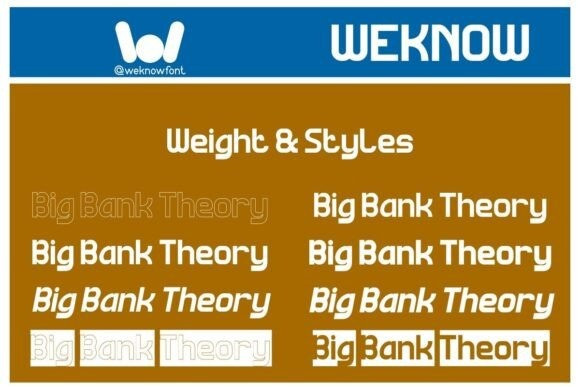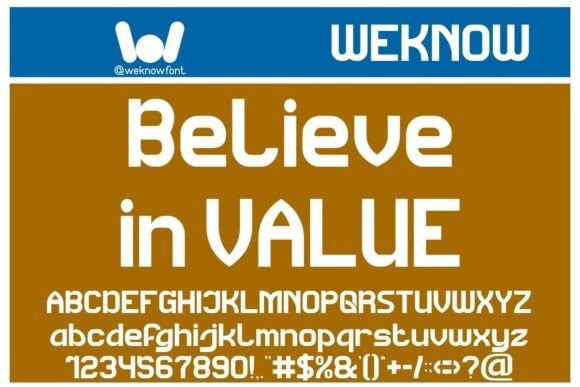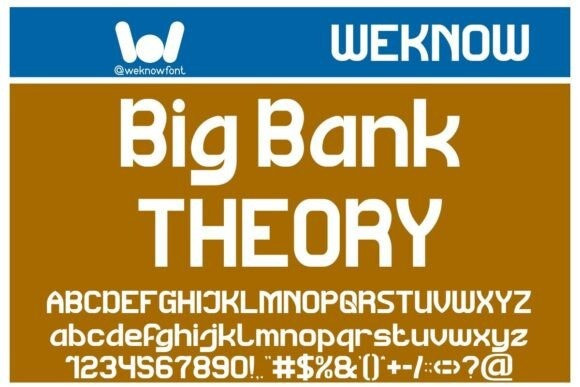
Big Bank Theory Font Family
Big Bank Theory Font Family a playful sans serif font with a twist of fun, bold aesthetics. Its versatility makes it an ideal match for high-impact headlines, while its distinct style stamps a signature identity on logos and logotypes. Whether you’re building a corporate brand, designing for the fashion industry, crafting a poster, writing a book, or developing a game, Big Bank Theory will add that splash of creativity you’ve been searching for.
Its stunning presence also makes it perfect for visual platforms like YouTube and Instagram. Moreover, the engaging appeal of Big Bank Theory also shines in entertainment mediums including music, movies, comics, and cartoons. The only limit? Your creativity. Realize your design visions with BigBank Theory, imbuing your projects with a memorable and engaging aesthetic.